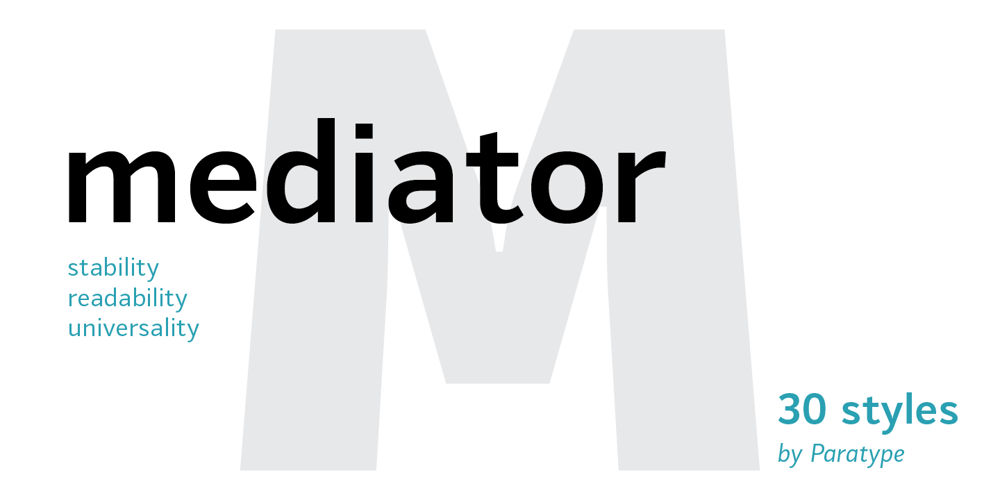
Mediator Font Family was designed by Manvel Shmavonyan, Alexander Lubovenko and published by ParaType. Mediator contains 22 styles and family package options. Mediator is a balanced contemporary sans serif typeface that performs well both in display sizes and body text. The family contains 30 fonts in 3 widths: 8 romans with matching italics, of slightly extended proportions, from Thin to Black; 7 narrow and 7 condensed, from Thin to ExtraBold. The character set in normal upright faces was expanded to include small caps and all faces include old style figures. The typeface was designed by Manvel Shmavonyan with the participation of Alexander Lubovenko and released by ParaType in 2016.